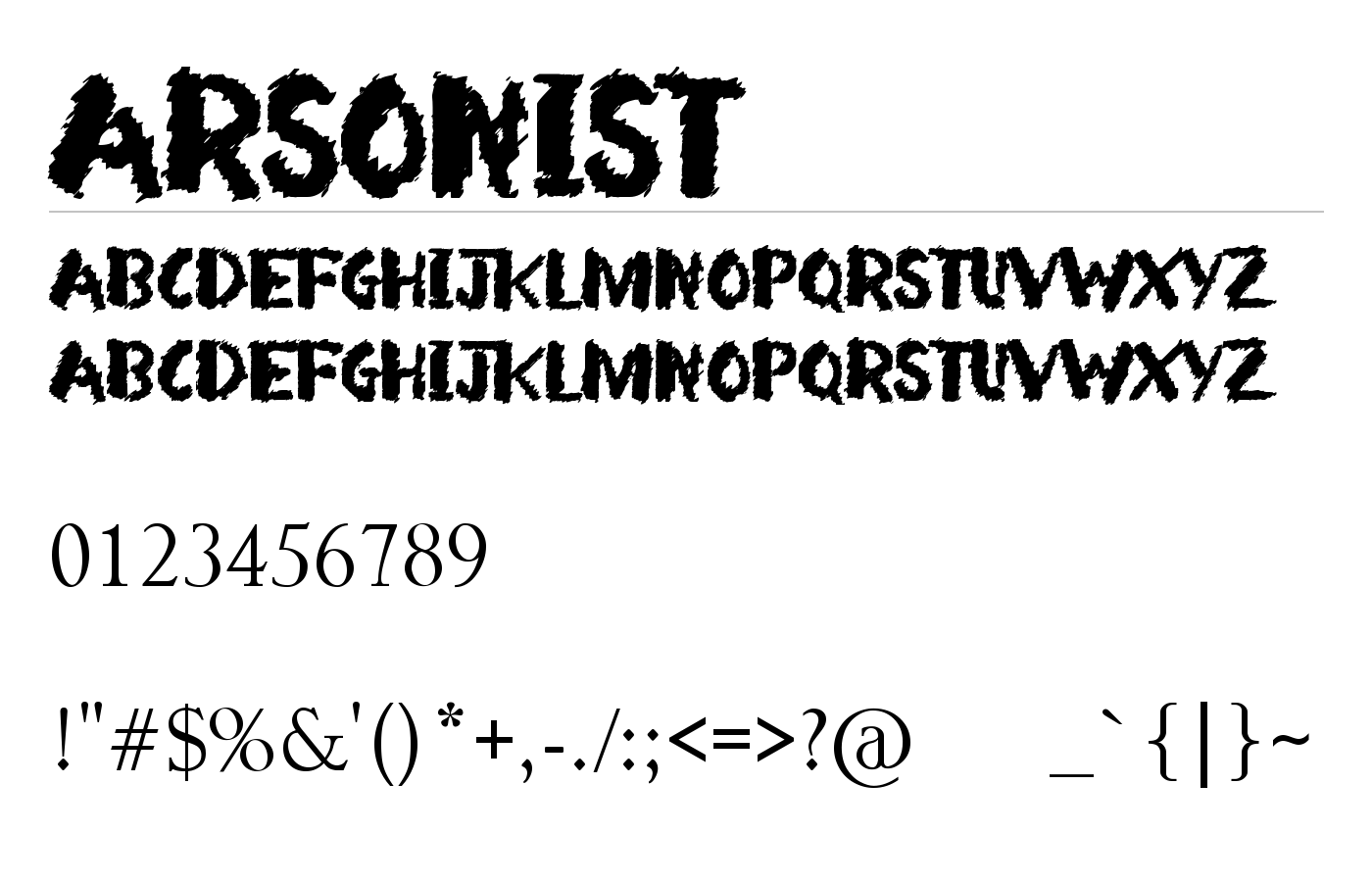
Arsonist is a bold and rough-edged display font with a hand-drawn, brushstroke texture that gives it an intense, rugged personality. Its uppercase letters exhibit uneven and jagged forms, making it ideal for creating a dramatic, edgy impact in headlines, posters, and designs that require a gritty, rebellious vibe. This font works best in expressive branding, urban-themed projects, or any creative work where a strong, unconventional statement is needed.
Arsonist Font
About Arsonist Font